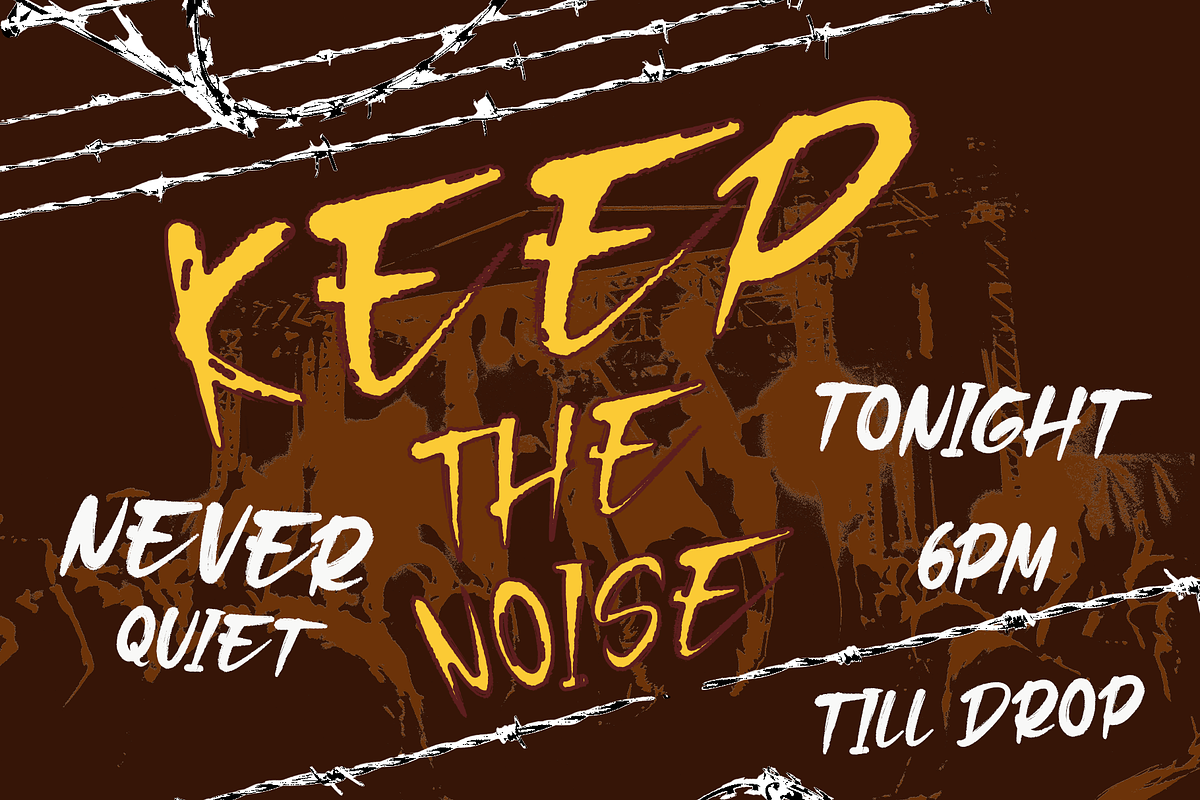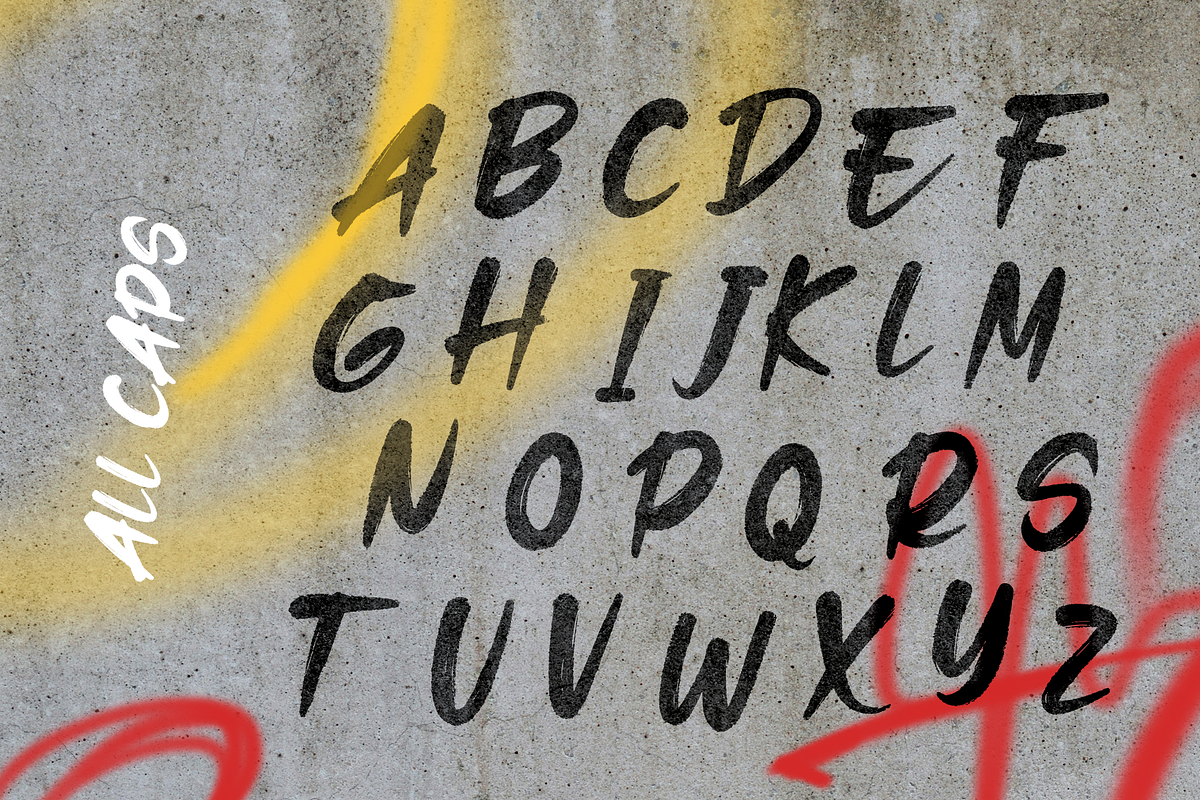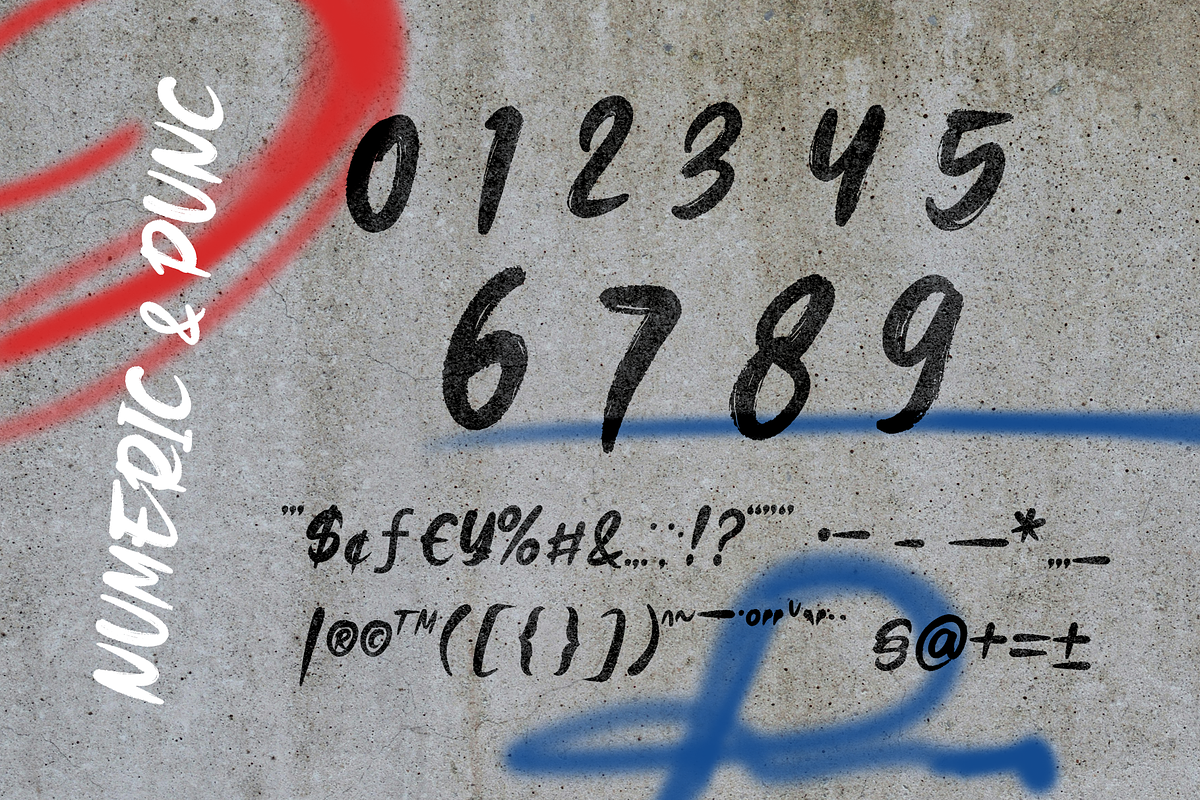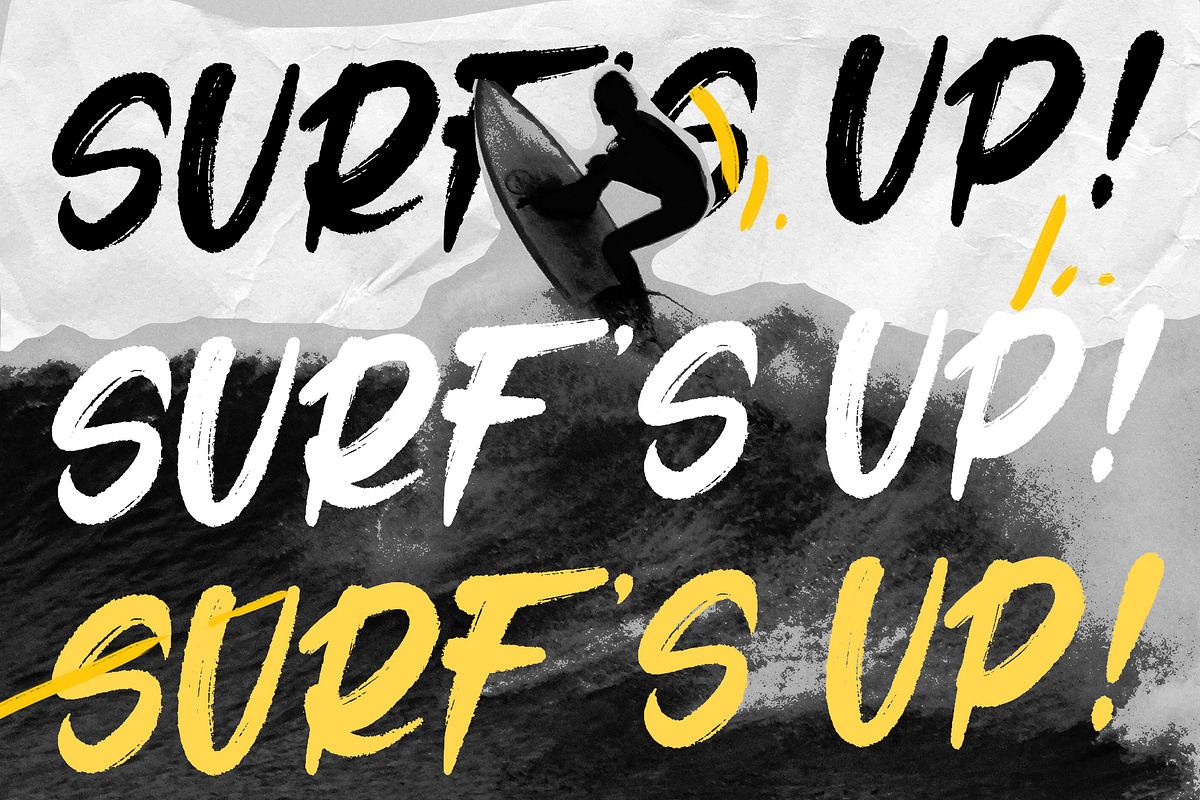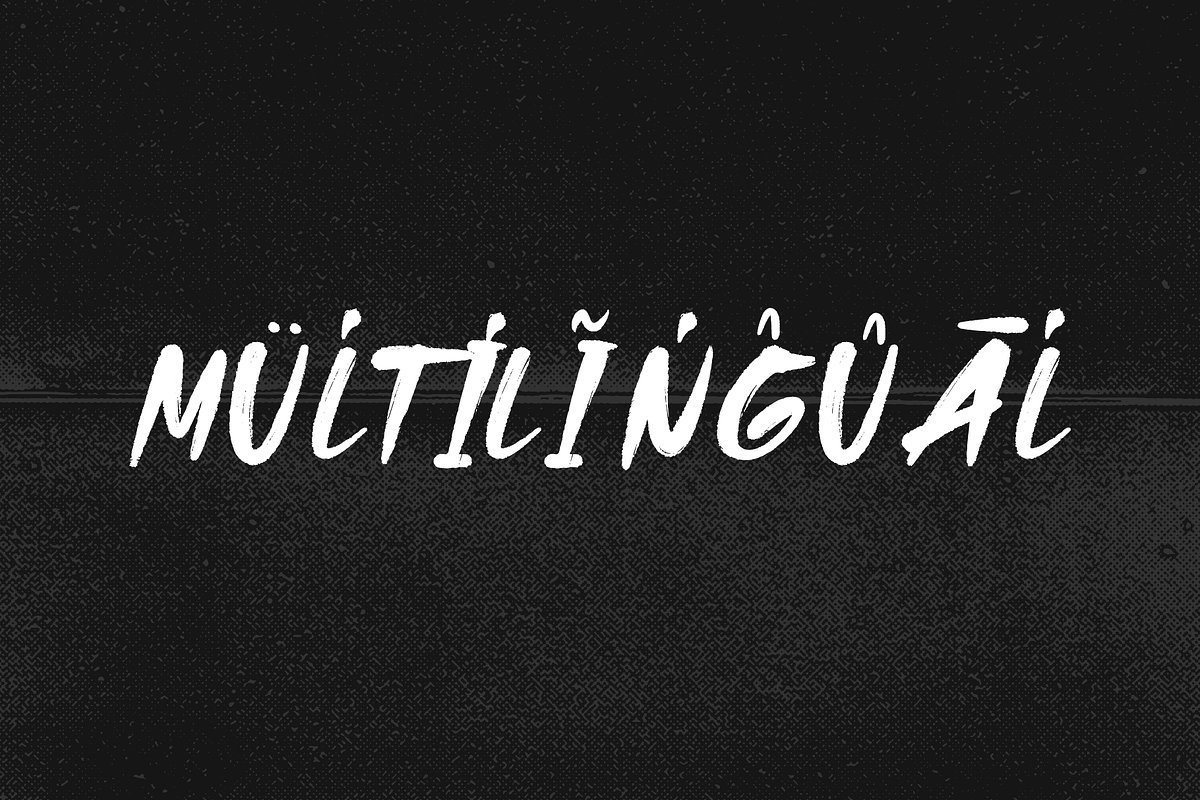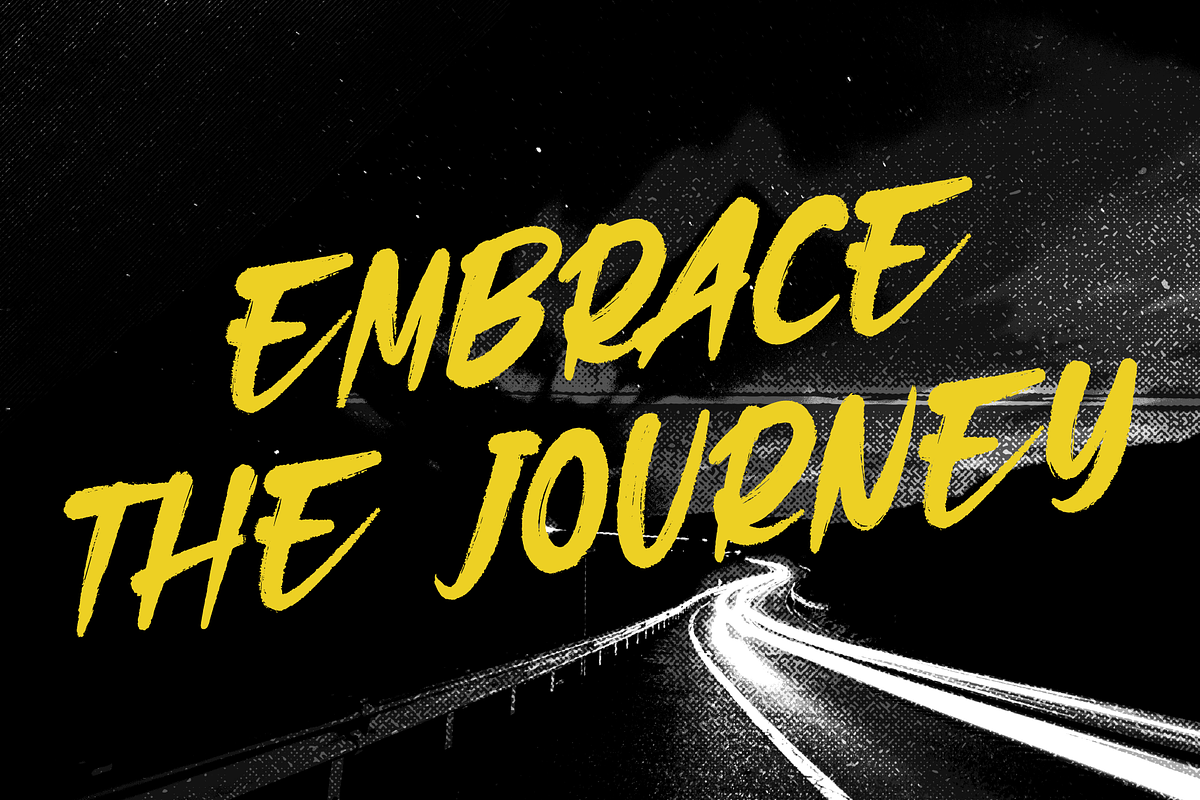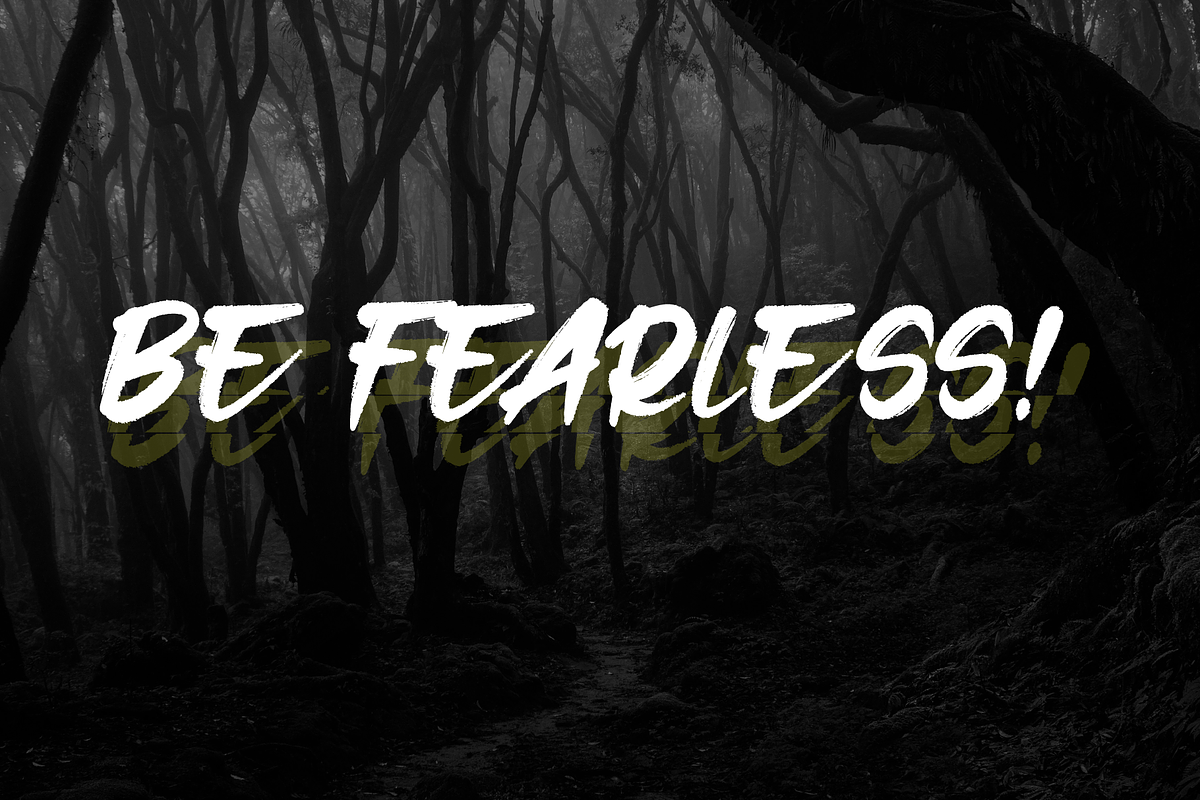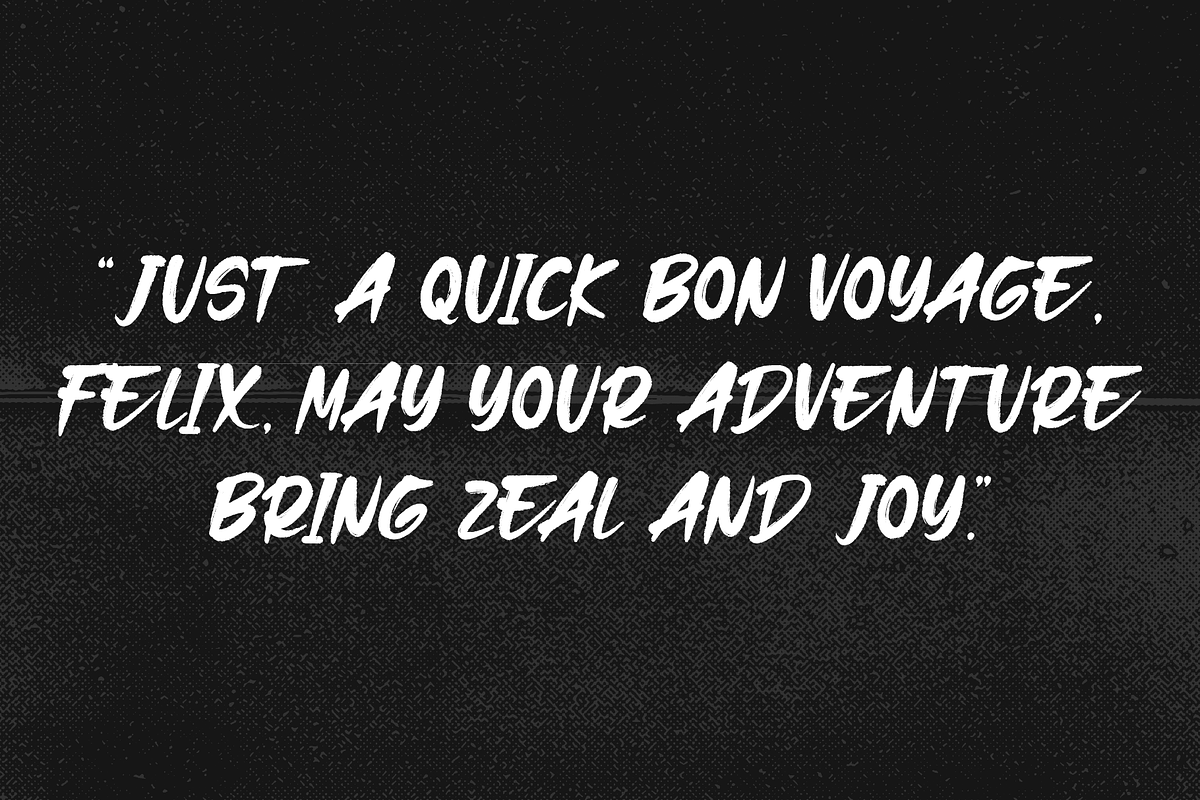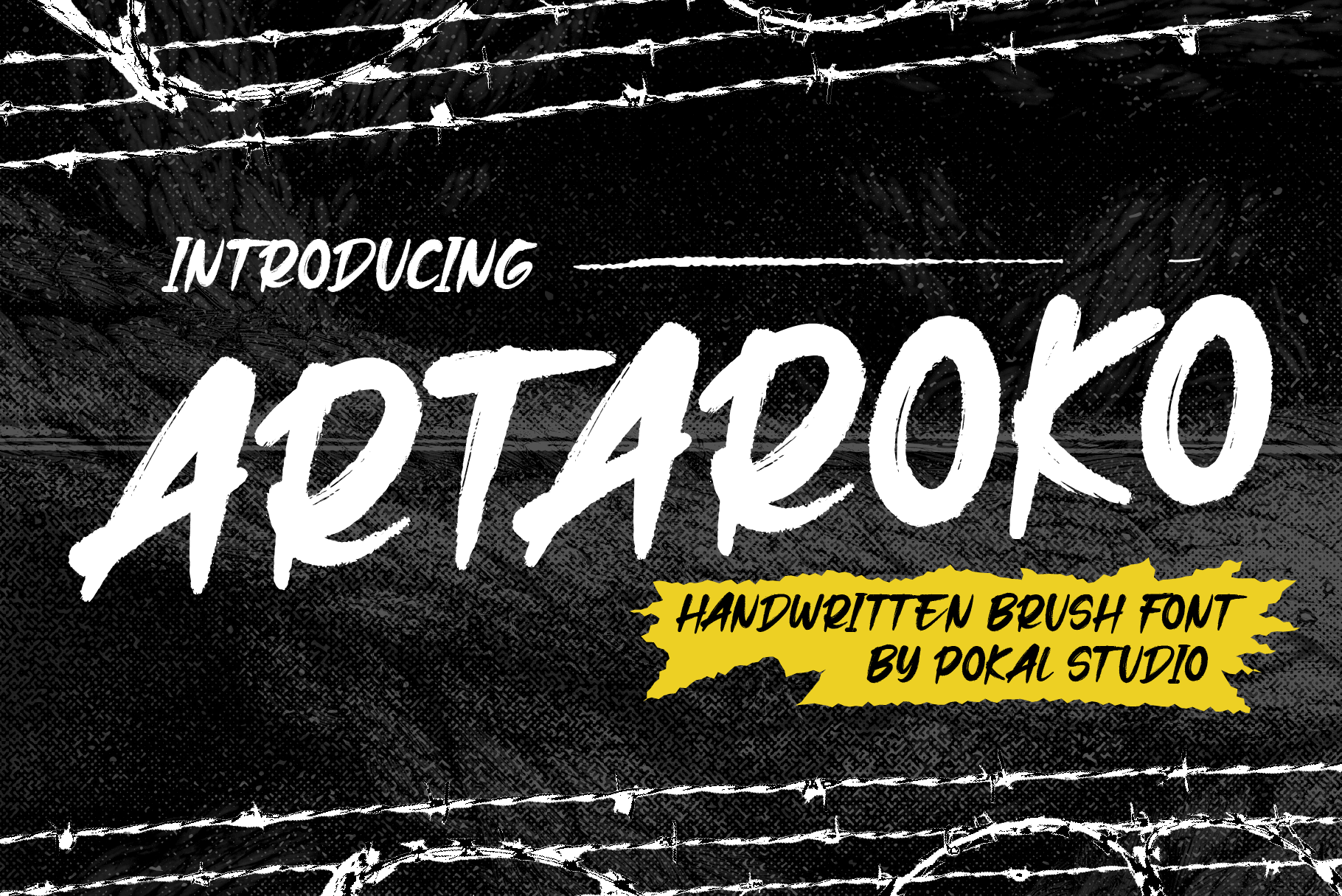
Artaroko Handwritten Brush Font
Artaroko – Handwritten Brush Font
Artaroko is a handwritten brush font designed with bold strokes and authentic hand-painted textures. Inspired by street art and urban culture, this grunge brush font brings raw energy and fearless expression into your design projects.
With its all-caps style, Artaroko is perfect as a display font for impactful headlines, bold quotes, and statement branding. The rough edges and textured details make it an excellent choice for those looking for a street style font or graffiti brush font that feels real, energetic, and handcrafted.
Best For:
- Urban branding & streetwear designs
- Music covers, festival & gig posters
- Graffiti-inspired artwork
- Bold social media graphics
- Logos, apparel & merchandise
If you’re searching for a bold brush font that combines grit, personality, and street-style vibes, Artaroko is the perfect choice to make your designs stand out.